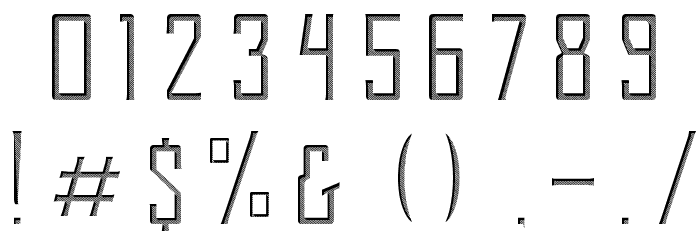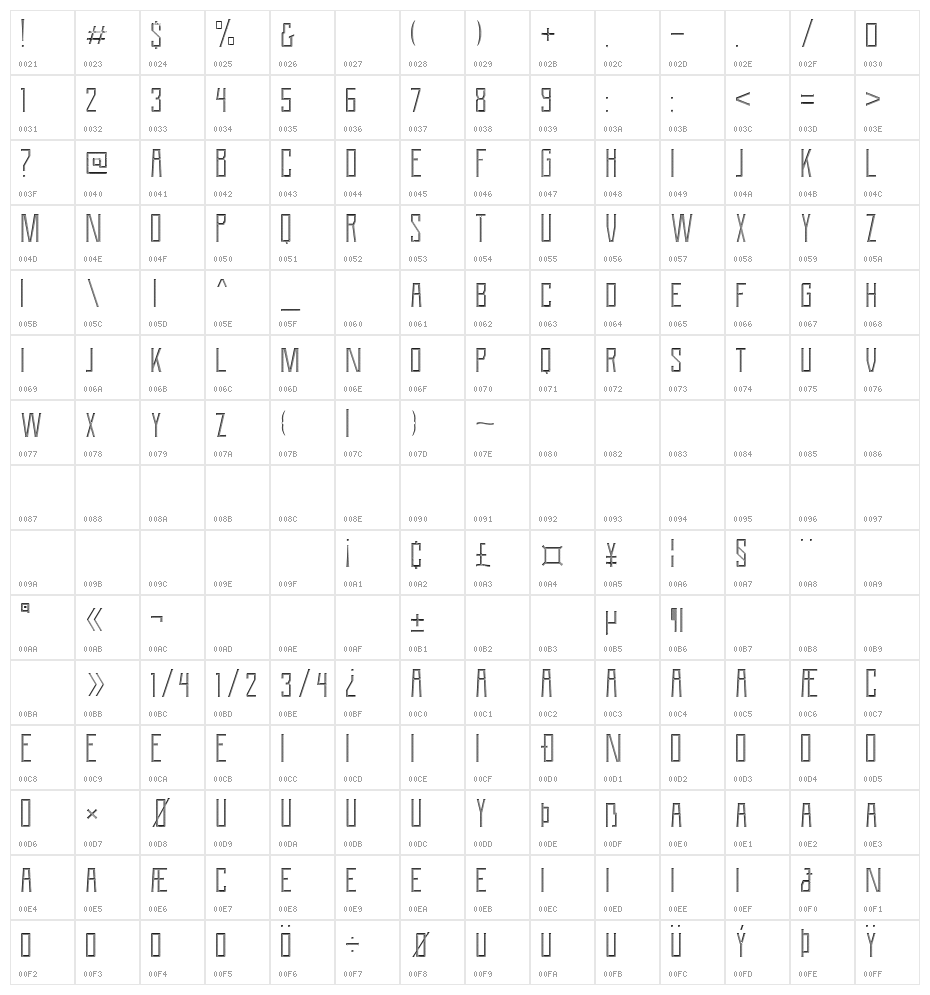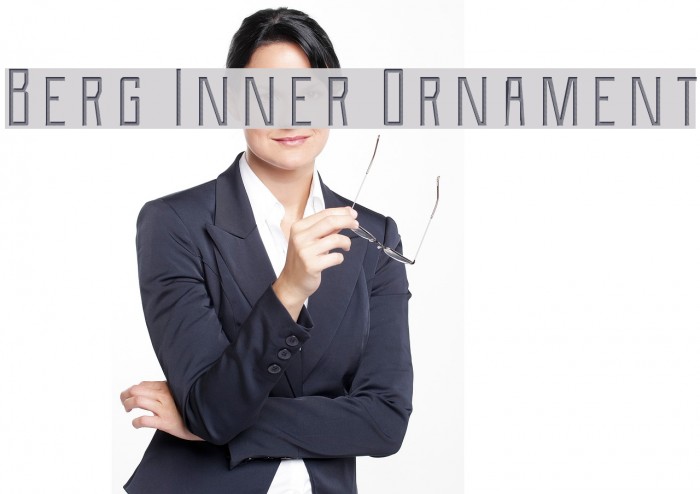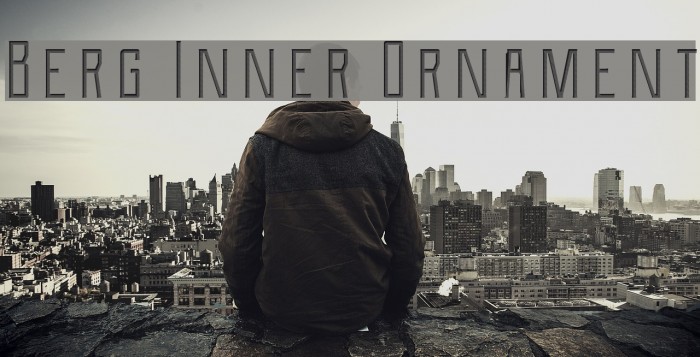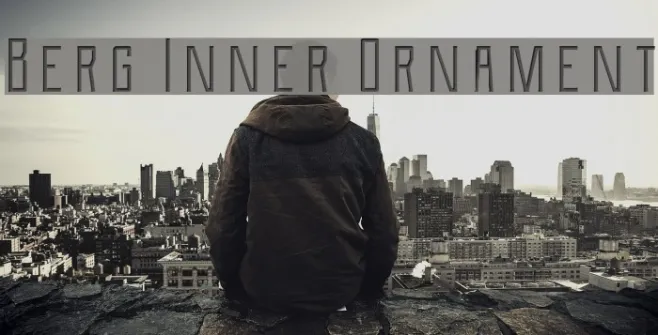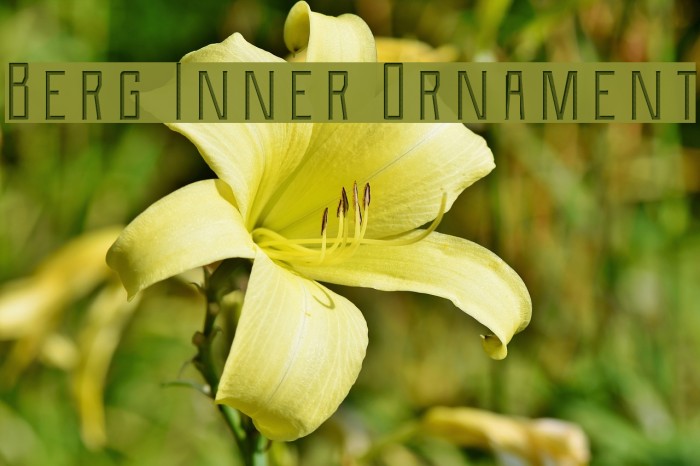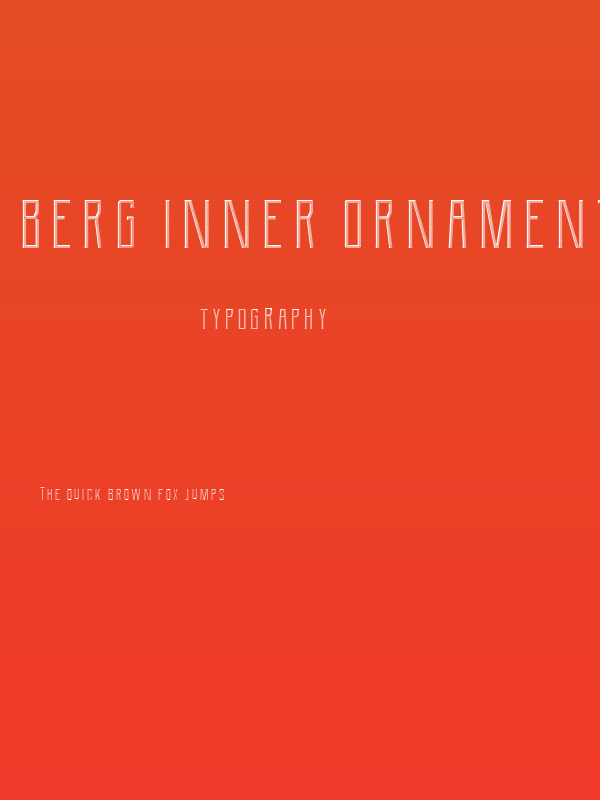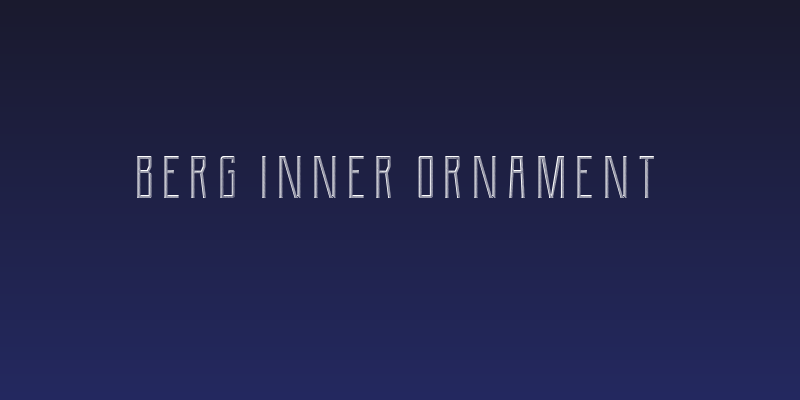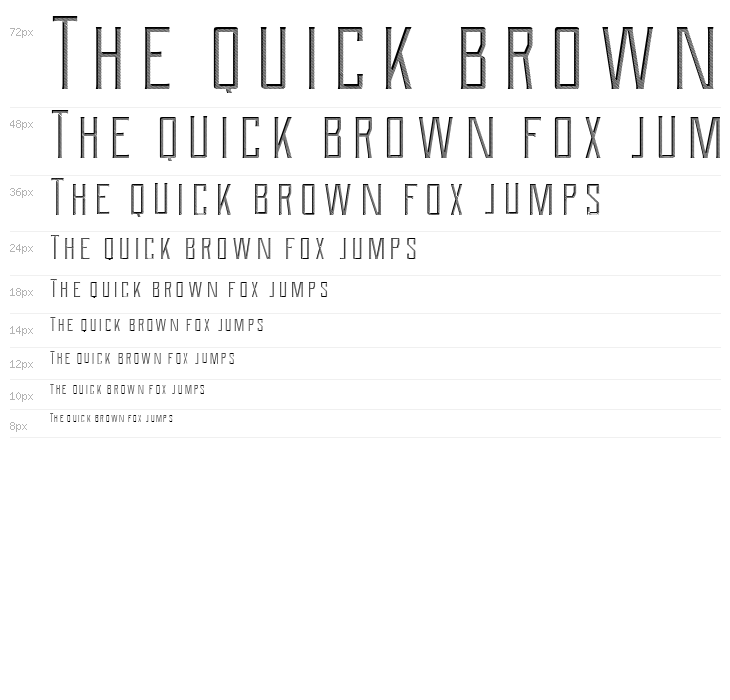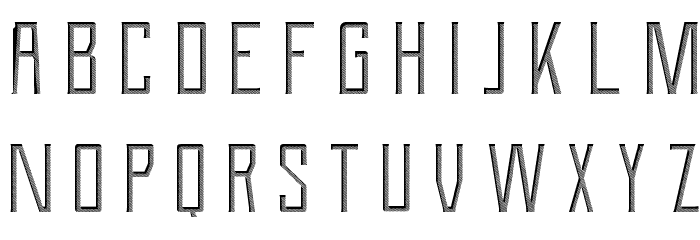
Berg Inner Ornament Font
Berg Inner Ornament Description
This font features a unique blend of geometric precision and ornamental detailing, creating a striking visual impact. The characters are structured with sharp, angular lines and a distinct inner pattern that adds depth and texture. The uppercase and lowercase letters maintain a consistent height, contributing to a uniform appearance. The numerals and special characters are designed with the same attention to detail, ensuring a cohesive look across all glyphs. This font's intricate design makes it suitable for projects that require a bold and artistic statement.
| Proposed Projects | Ideal for branding, poster design, album covers, and any project that benefits from a bold, artistic typeface. |